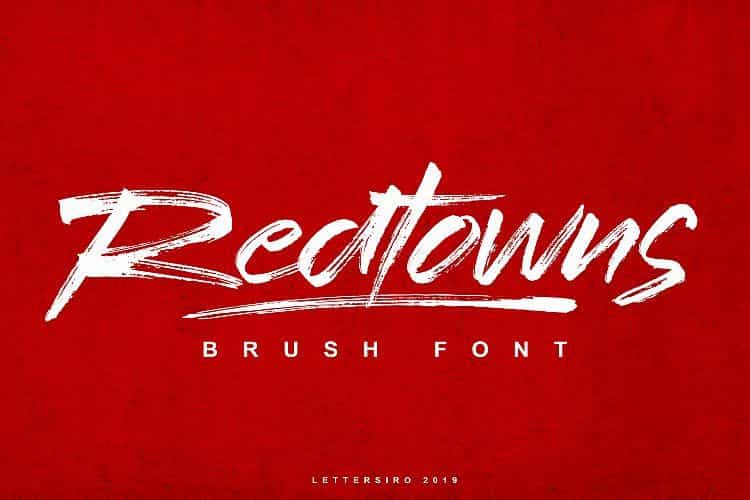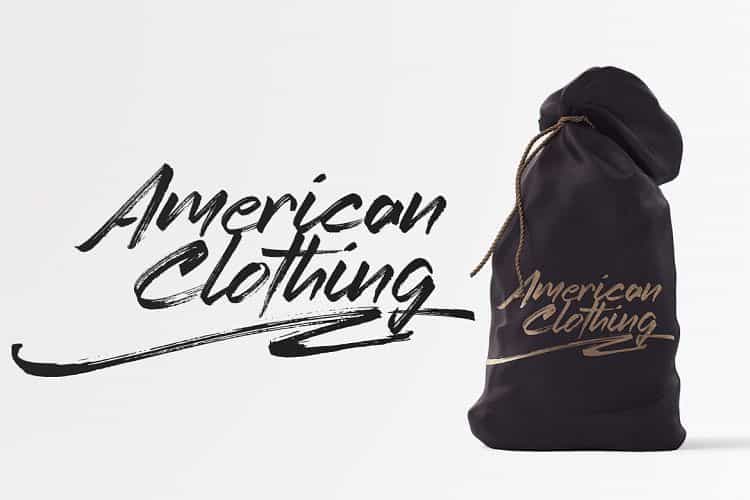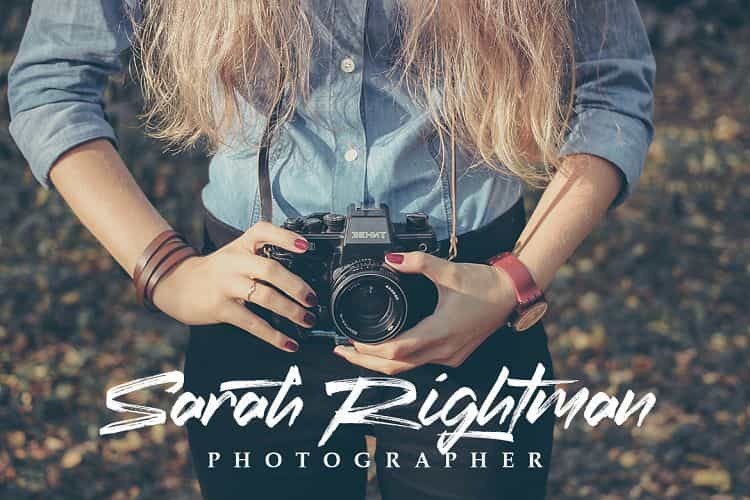
Introducing Redtowns Font. Redtowns Brush Font is a font that was created by hand using brush pen and paper. This font is perfect for modern-day projects such as clothing, signature, watermarking, photography, poster making and branding. Redtowns also have swashes that are underlined and can be perfectly paired. Simply create your own design, this is simple to do with the use of font which will make your project easier.